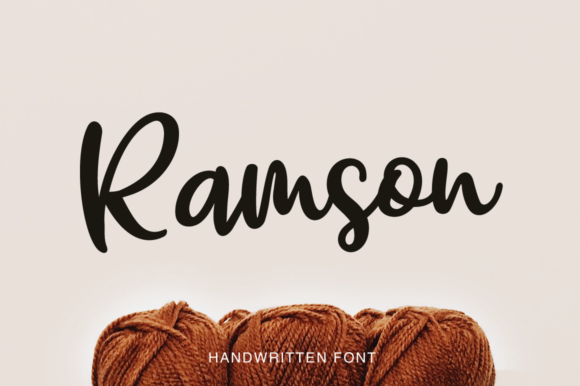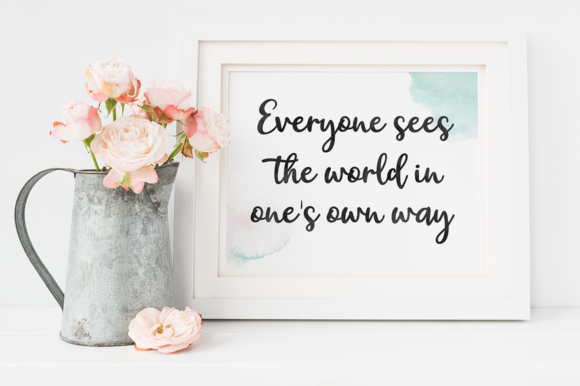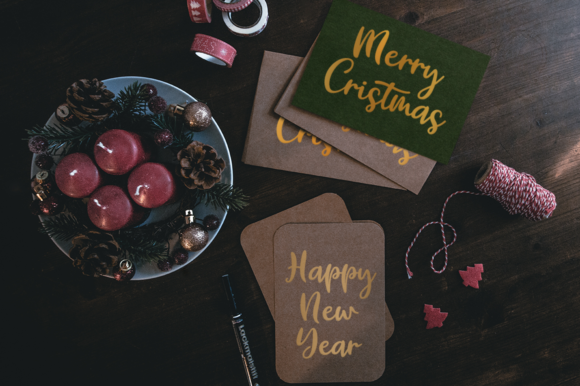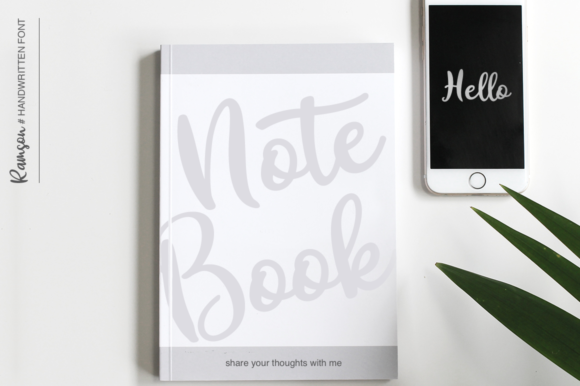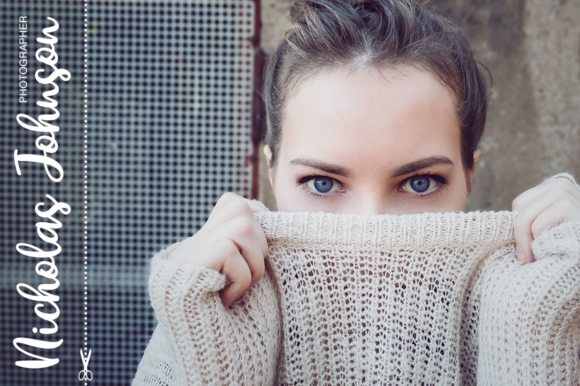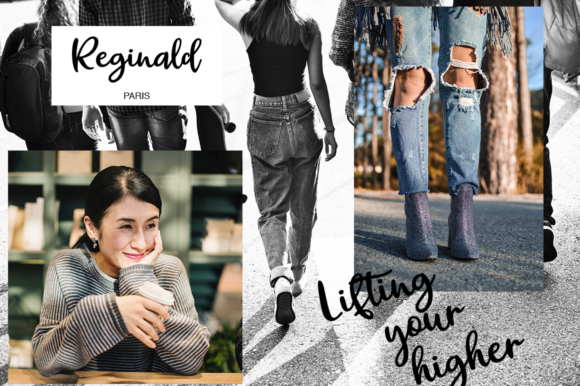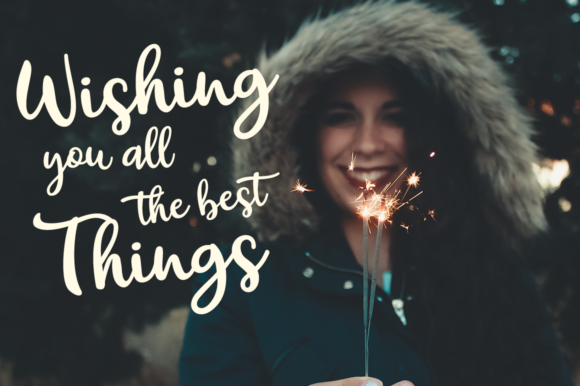
Ramson Font
About Ramson Font
The Ramson is a bold and fresh calligraphy script. It has clean lines and a great readability which can be used to decorate almost every design.